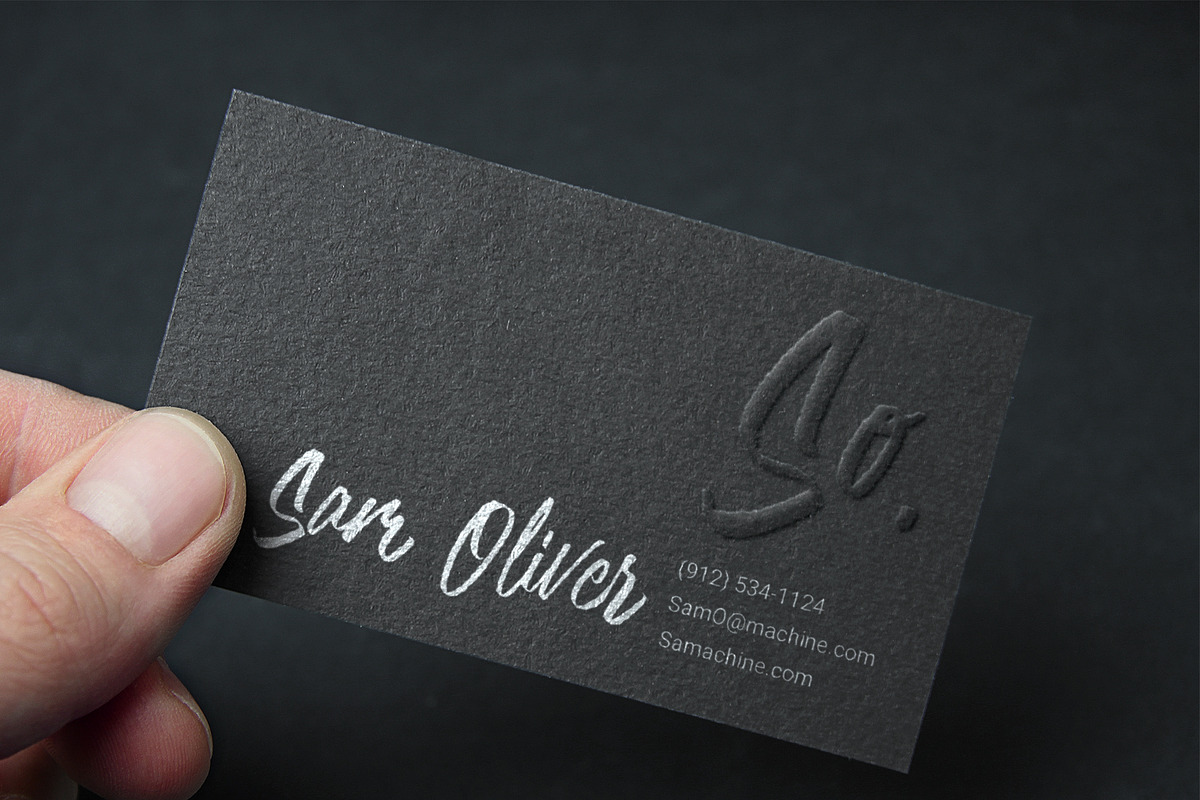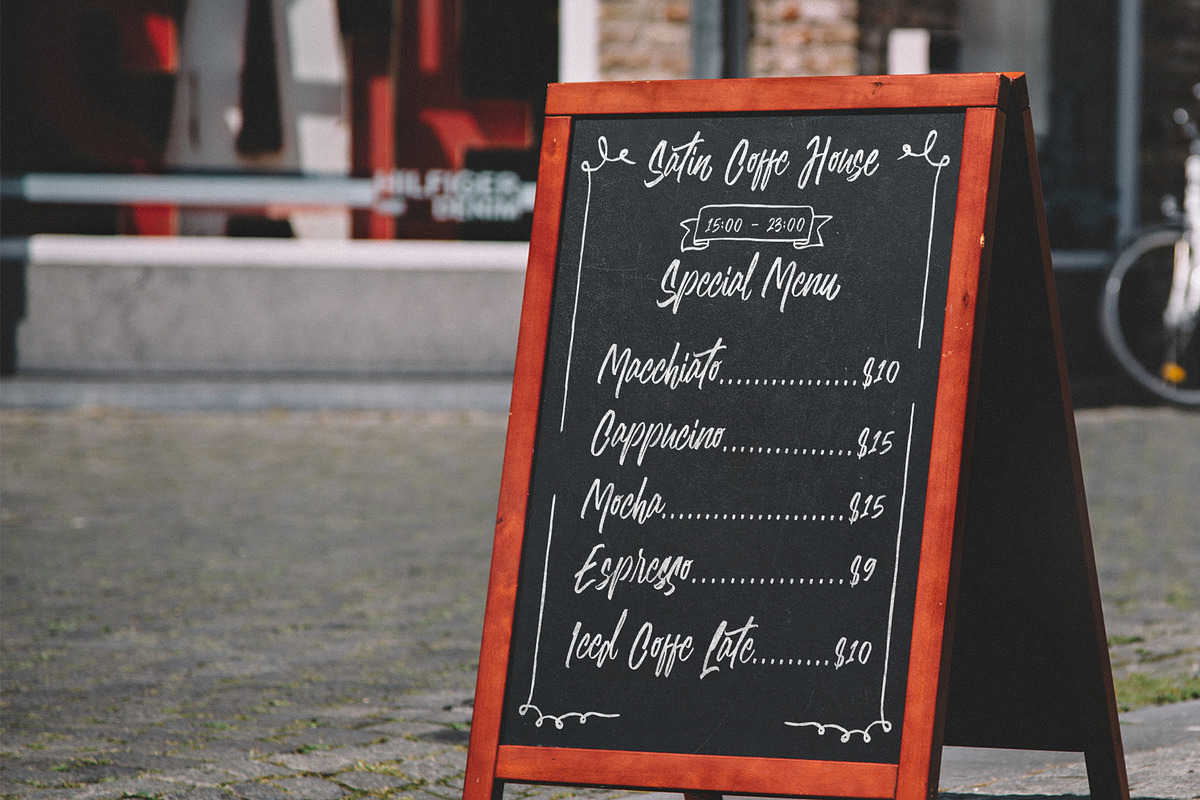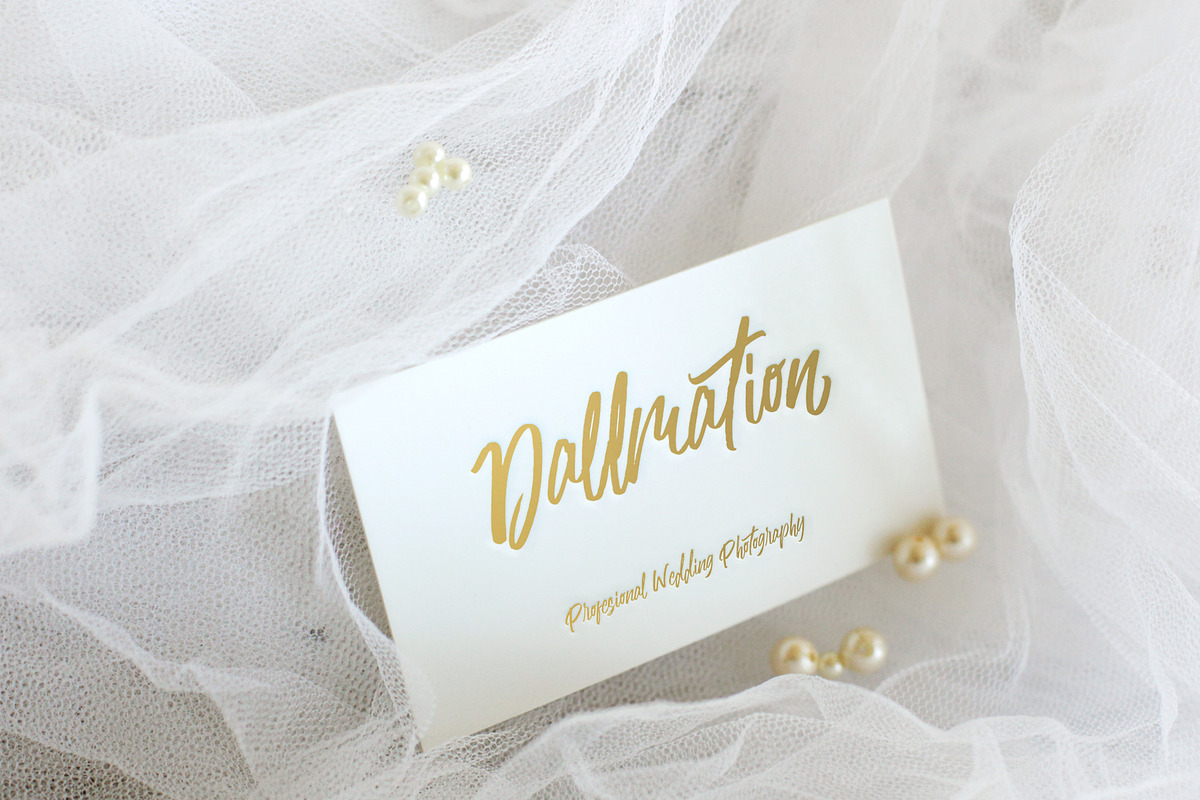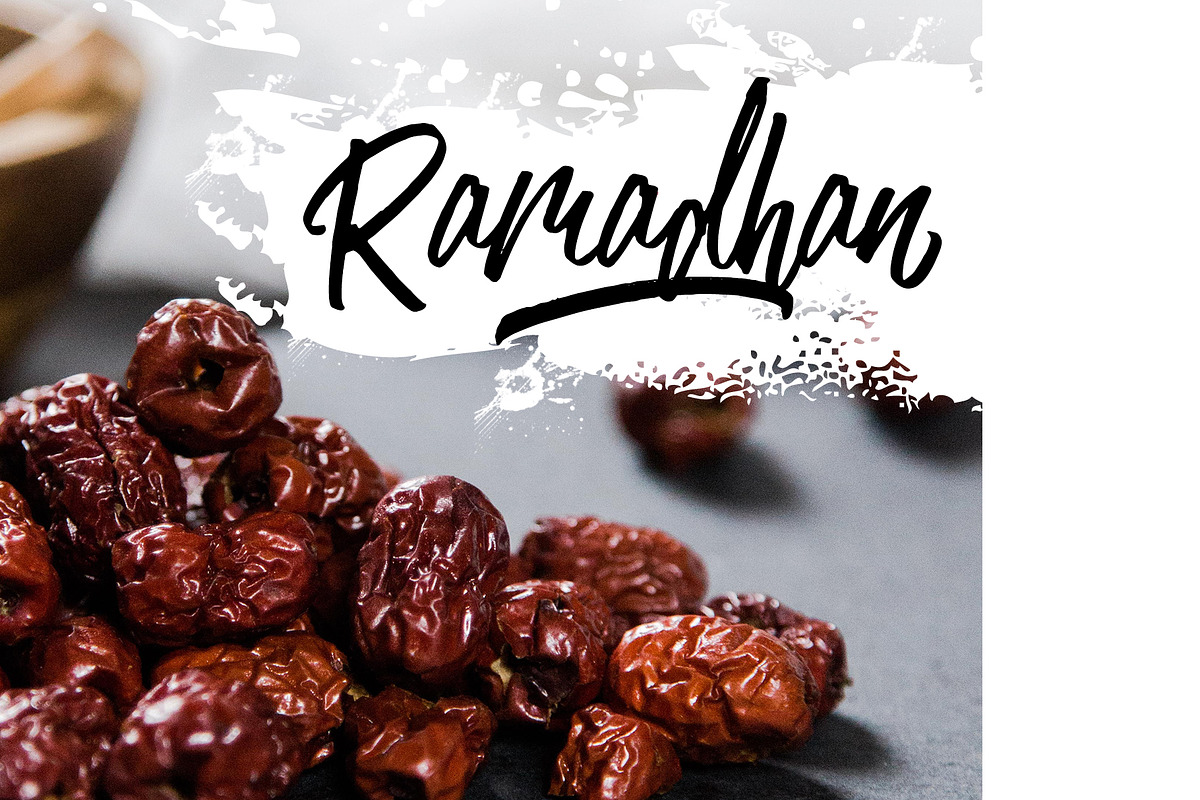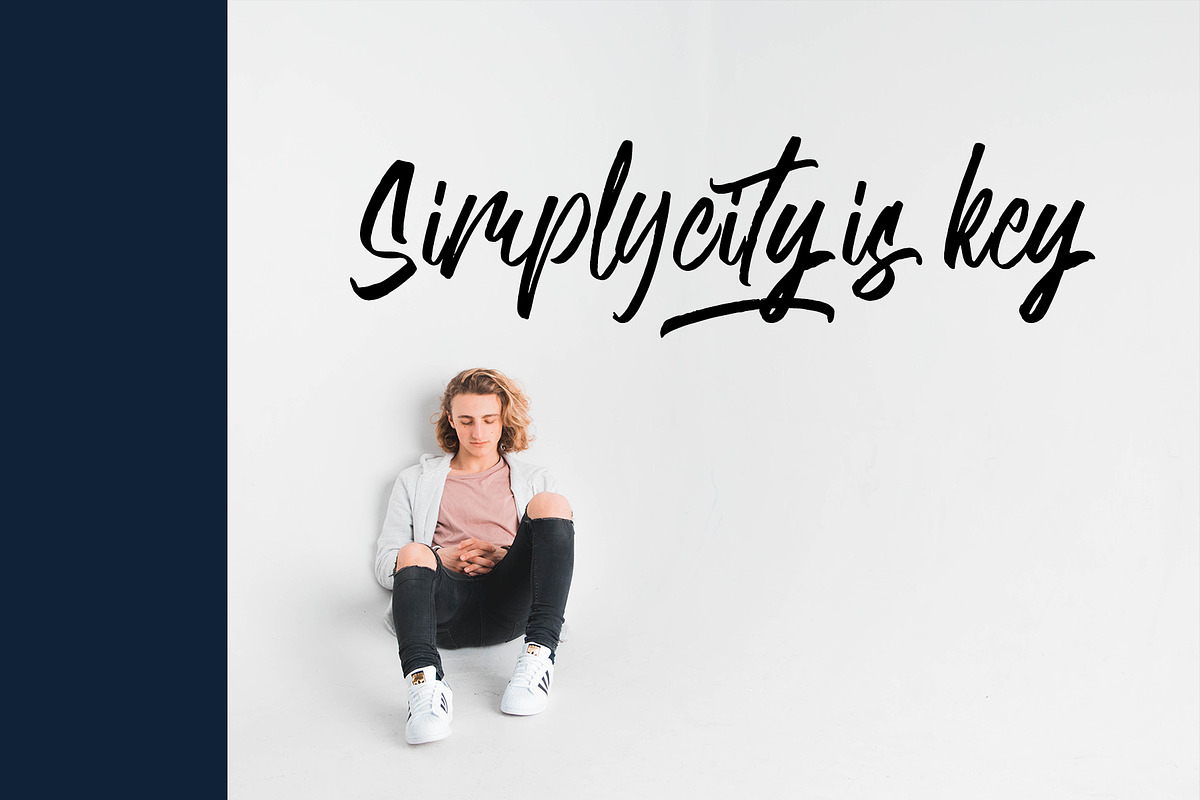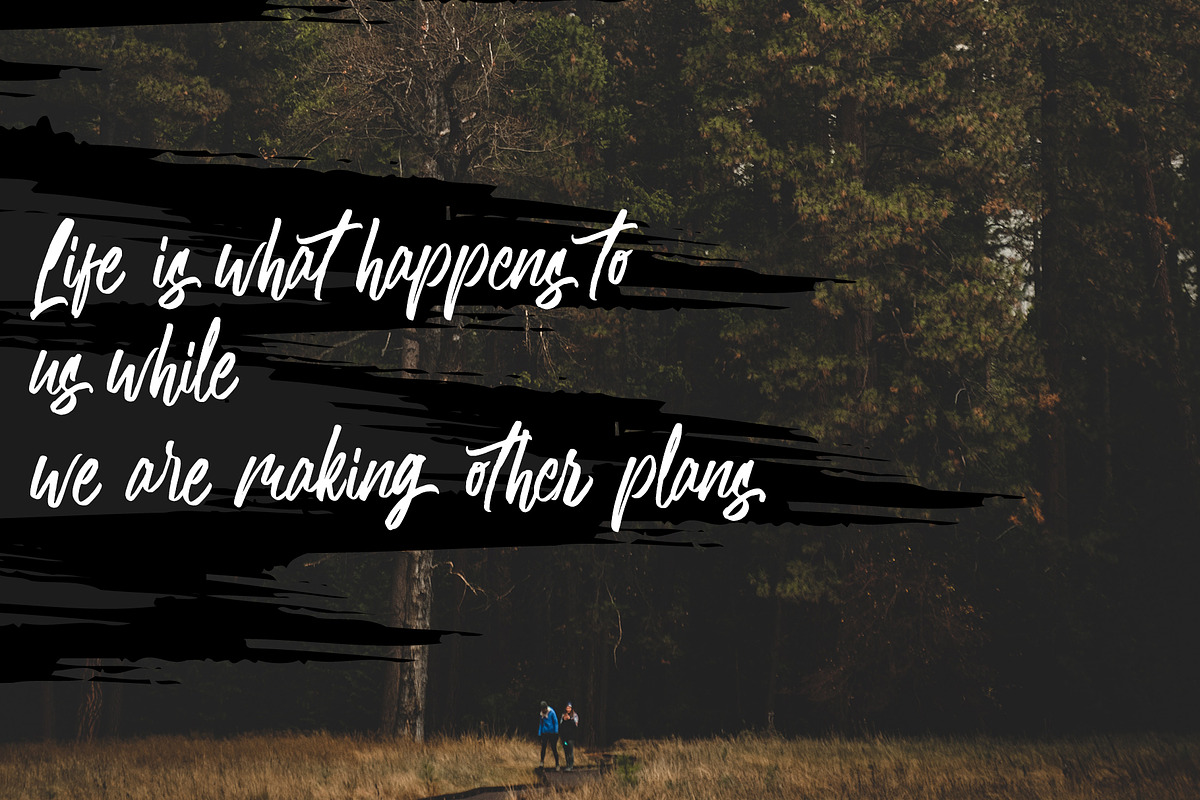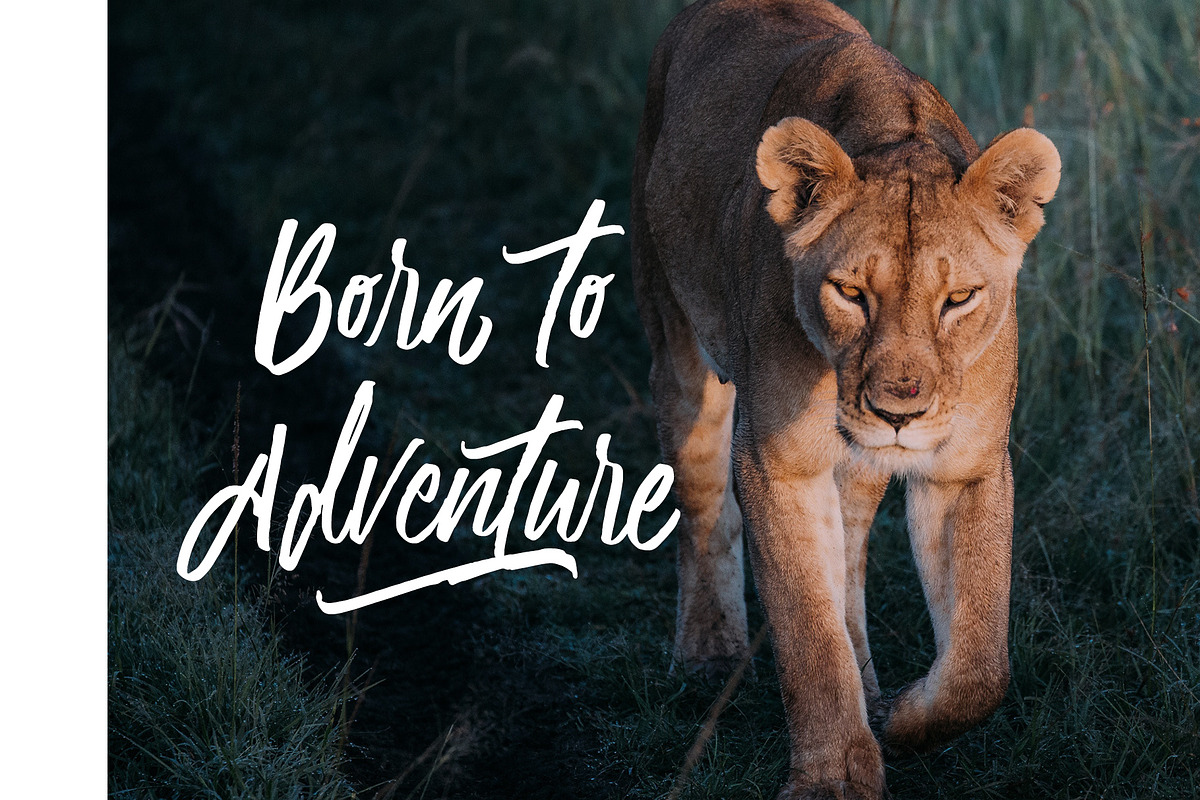
Callendom Casul Font
Introducing Callendom font , a casual handwritten font. With a solid clean handlettering style , Callendom offer sytlish flow it pervect for branding ,logo ,advertisements ,product packaging , wedding, card, quotes & simply as a stylish text overlay to any background image.
1. Callendom Regular (OTF & TTF format ) - A handwritten font with uppercase, lowercase, number, symbol, included ligatures and alternatives
2. Callendom Swash (OTF & TTF format ) - contain 10 swash type , for the swash will work by type a,b,c,d,e,f,g,h,i & j
-Ligatures are also working automaticly (double letter) , if you type ll tt ss nr ar mr